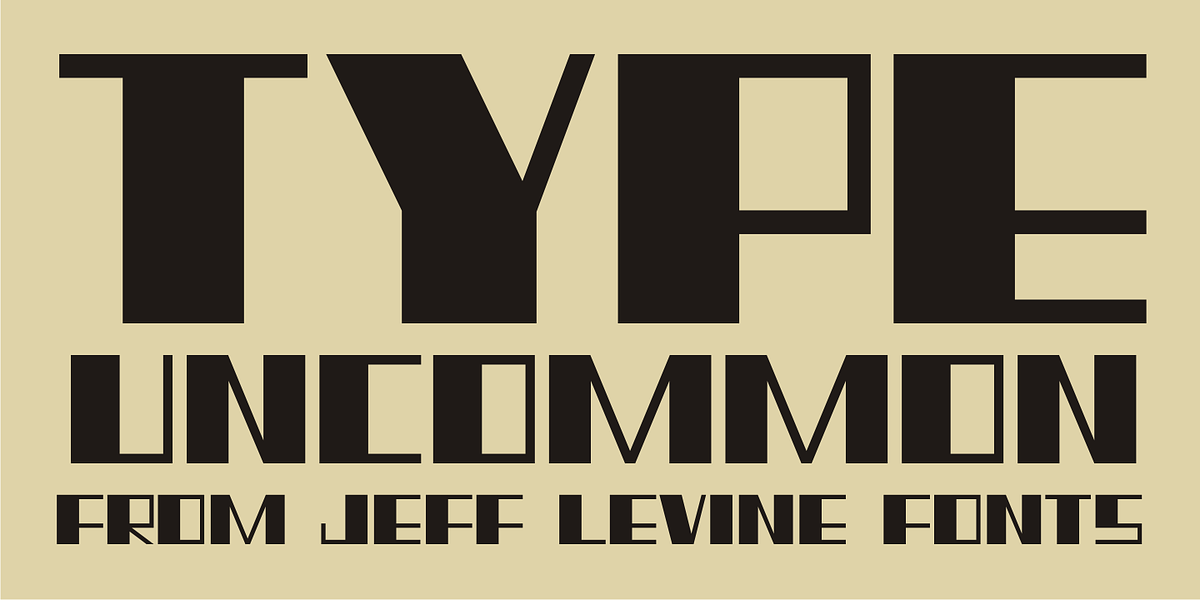
Type Uncommon JNL
Never let it be said that a good pun and a good font name can’t work well together.
The vintage sheet music for a 1920s-era song called “King Tut” (not to be confused with the novelty tune by comedian Steve Martin) presented an oddly-interesting block font which is now available in digital form as Type Uncommon JNL.
The pun derives from the font’s name of “Type Uncommon”, which is similar in sound to King Tut’s full name (which is Tutankhaten).